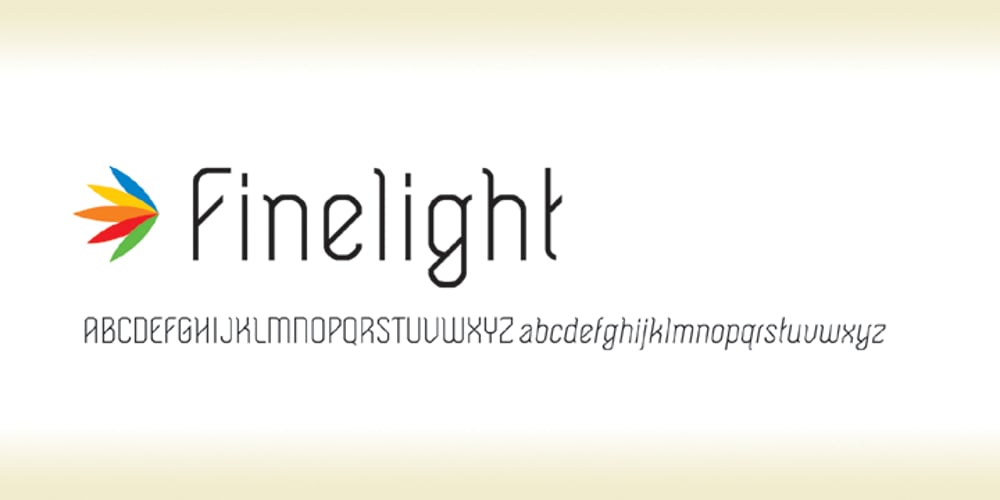
Finelight Font Family was designed by Joey Stephen Maul and published by Joey Maul. Finelight contains 2 styles and family package options. Finelight has the ability to work nicely for designs needing that fine touch with a structure that feels personal and business-like.